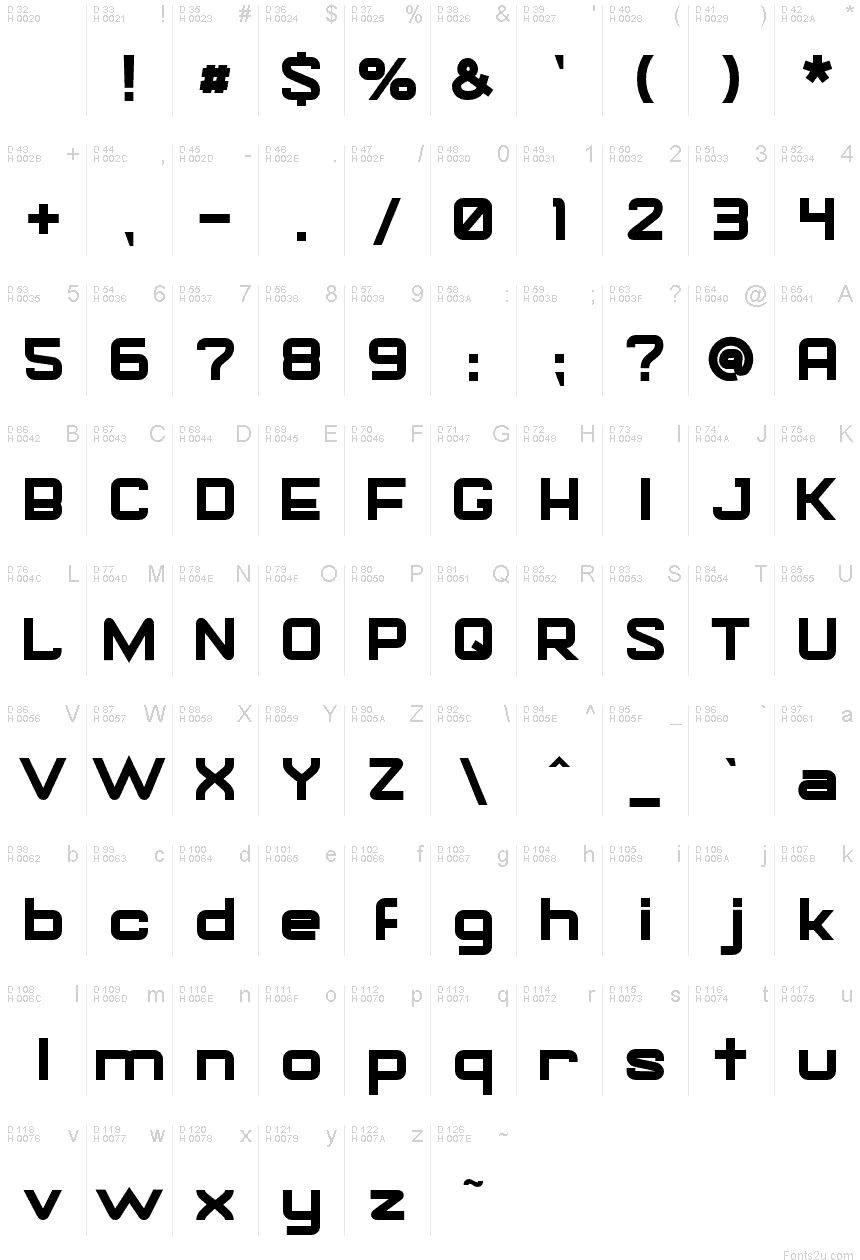
Gorila Bold
Gorila Bold is a free modern display font with massive, squared forms and a sharp techno edge. Rounded outer corners soften the dense strokes, but the flat tops and cut-in joins keep the lettering mechanical. Its broad proportions create a solid horizontal band, with tight spacing that makes consecutive letters feel almost connected.
The futuristic styling fits electronic music posters and science-fiction game graphics particularly well. Sports merchandise and tech branding can also use its muscular silhouette as a compact emblem. It is aimed at designers seeking an assertive, machine-age look rather than a neutral geometric sans serif.